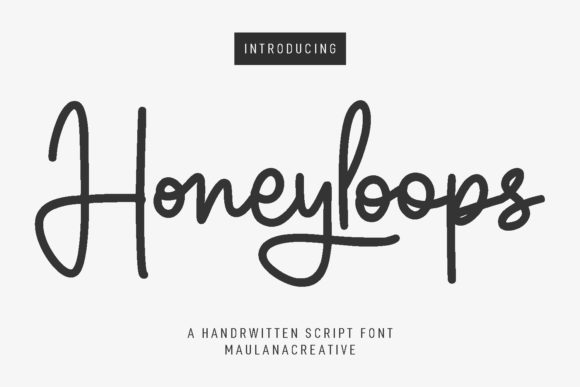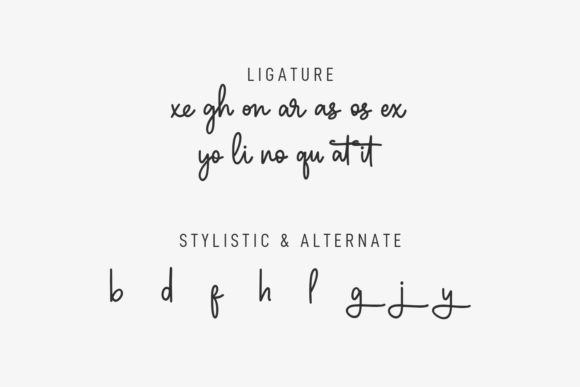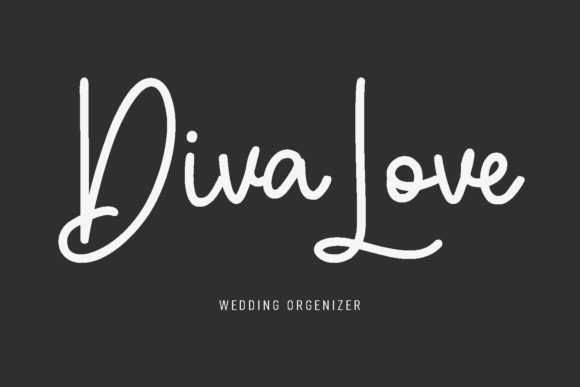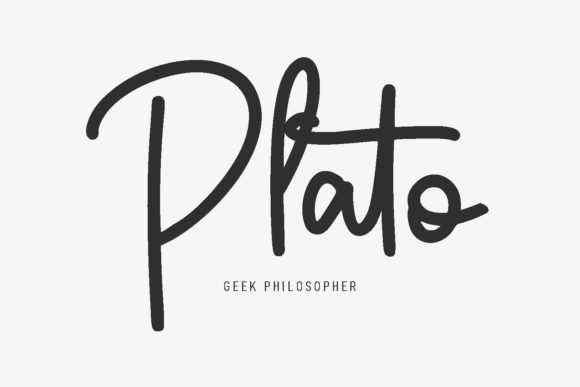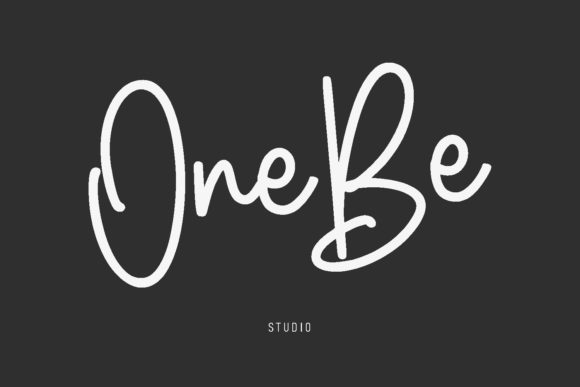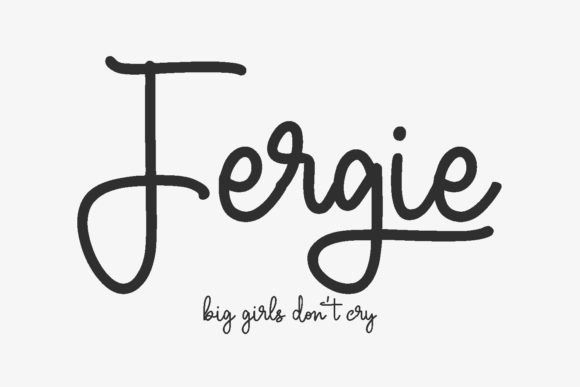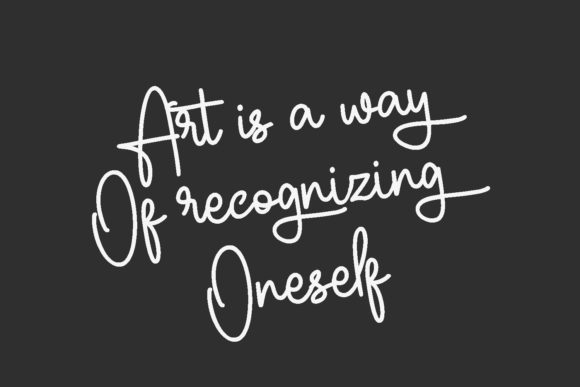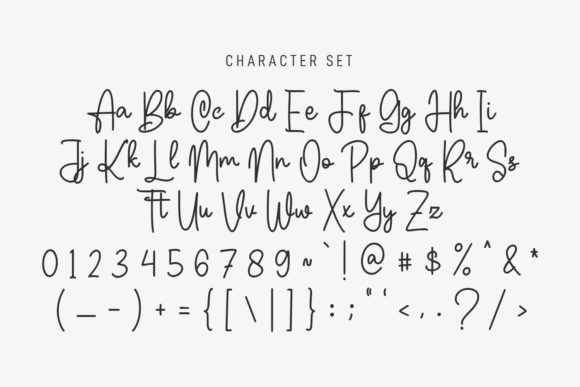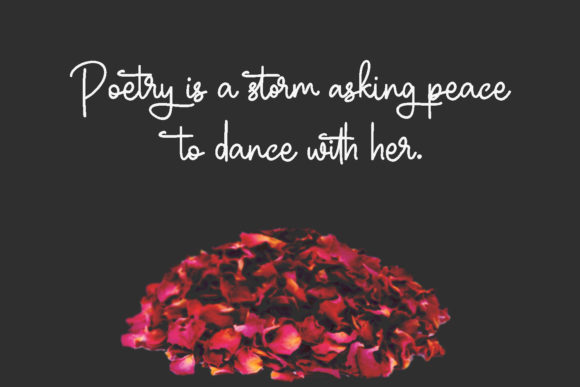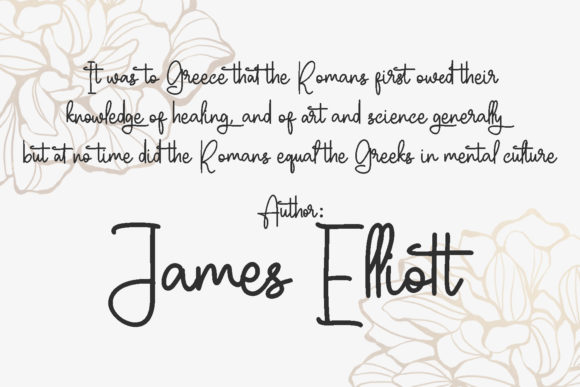
Honeyloops Font
About Honeyloops Font
“Honeyloops” is a charming and stylish cursive script font that adds a touch of elegance and playfulness to your designs. With its medium mono-line strokes and distinctive characters, this font brings a unique flair to any project. Whether you’re working on branding, invitations, logos, or any other creative endeavor, “Honeyloops” will leave a lasting impression.
The cursive nature of “Honeyloops” gives your text a flowing and interconnected appearance. The letters gracefully connect, creating a sense of continuity and smoothness in your designs. This flowing quality adds a touch of sophistication and refinement, making it a perfect choice for projects that require a touch of elegance.
The “Honeyloops” font is characterized by its fun and whimsical characters. The playful loops and curls add a sense of movement and liveliness to your text. These unique design elements capture the eye and create visual interest, ensuring that your designs stand out and leave a memorable impression.
With its ligatures and alternates, “Honeyloops” offers versatility and customization options. You can experiment with different letter combinations to create a personalized look for your projects. This feature allows you to add a touch of individuality and creativity to your designs, making them truly unique.
The name “Honeyloops” evokes a sense of sweetness and fun, which perfectly matches the font’s playful and charming demeanor. Just like loops and swirls in a cursive script, “Honeyloops” adds a sense of delight and enjoyment to your designs. Its unique combination of elegance and playfulness makes it suitable for a wide range of applications.
Incorporating “Honeyloops” into your designs allows you to create a sense of style and sophistication while infusing a sense of fun and whimsy. Whether you’re designing for branding, packaging, invitations, or any other project that requires a touch of character, “Honeyloops” is a fantastic choice that will add a delightful twist to your creations.